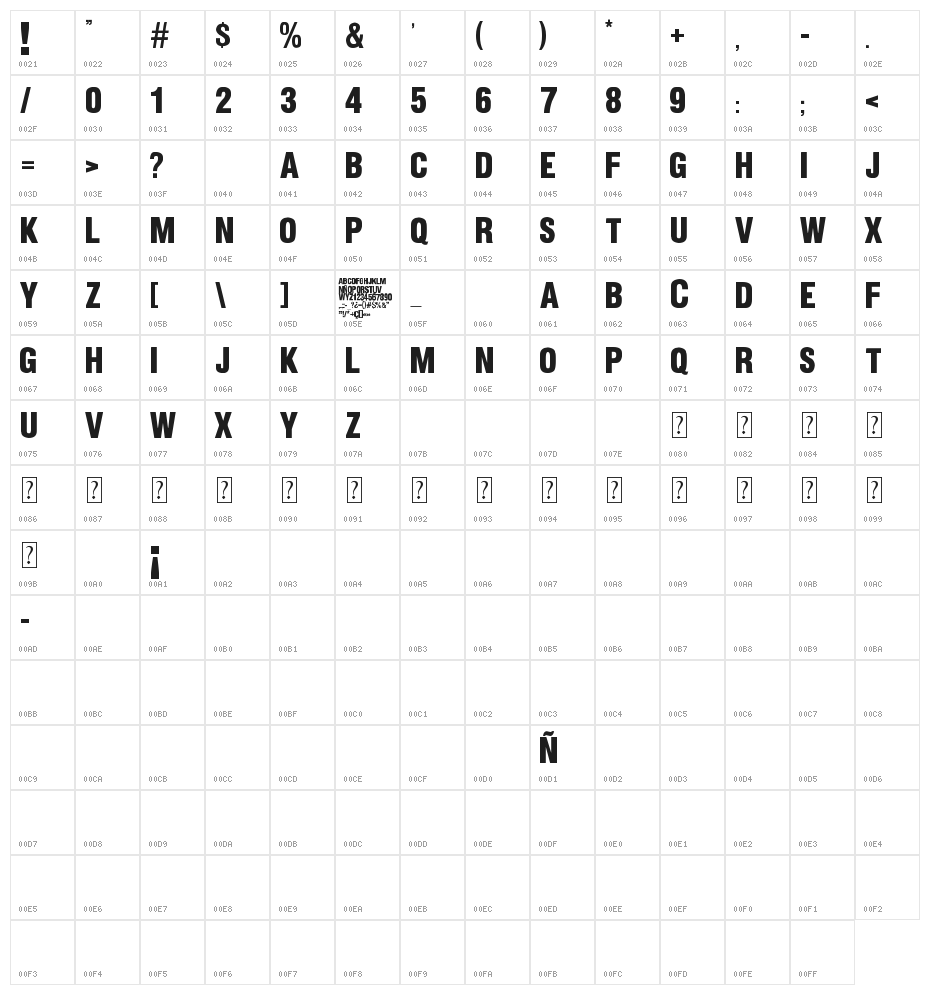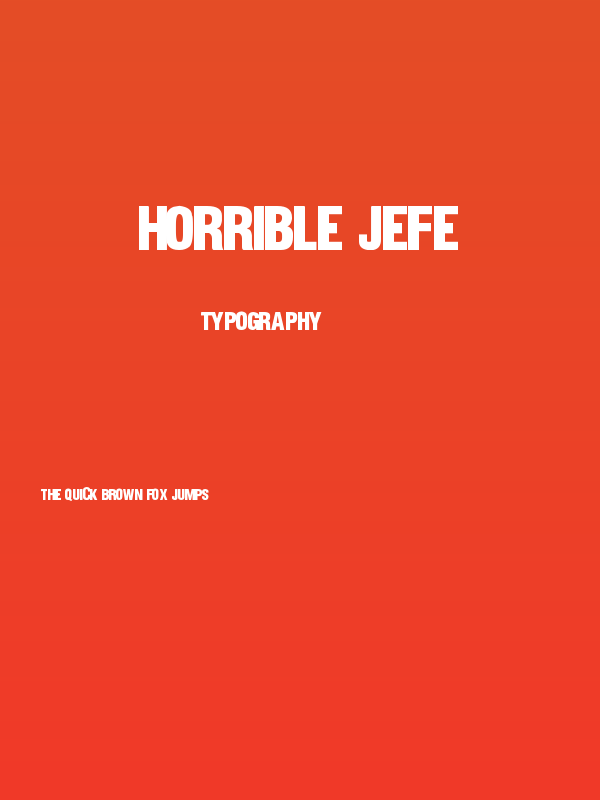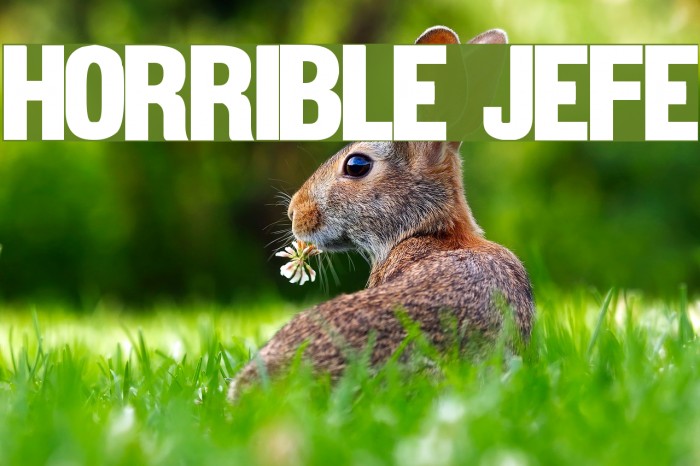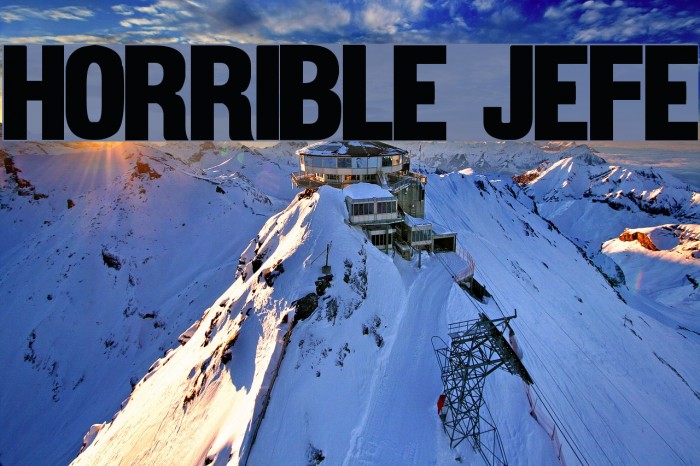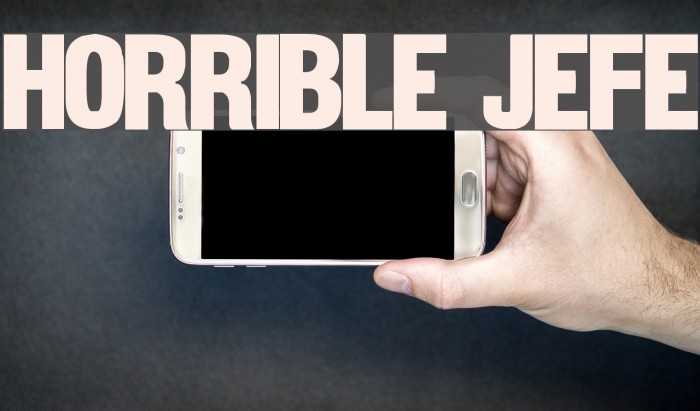
Horrible Jefe Font
Horrible Jefe Description
This font features bold, uppercase letters with a strong, impactful presence. The characters are uniformly thick, providing a sense of stability and strength. The design is straightforward, with clean lines and no additional embellishments, making it highly legible. The numbers and special characters maintain the same boldness, ensuring consistency across all elements. This font is ideal for making a statement, with its powerful and assertive style.
| Proposed Projects | Ideal for headlines, posters, banners, and any project requiring a bold statement. |